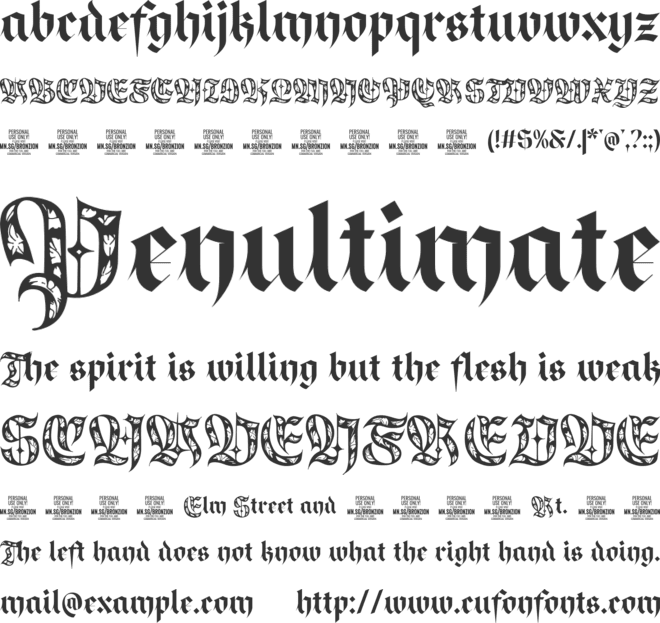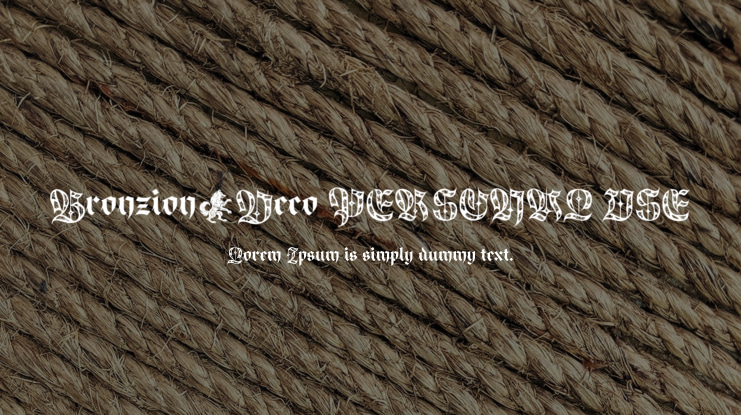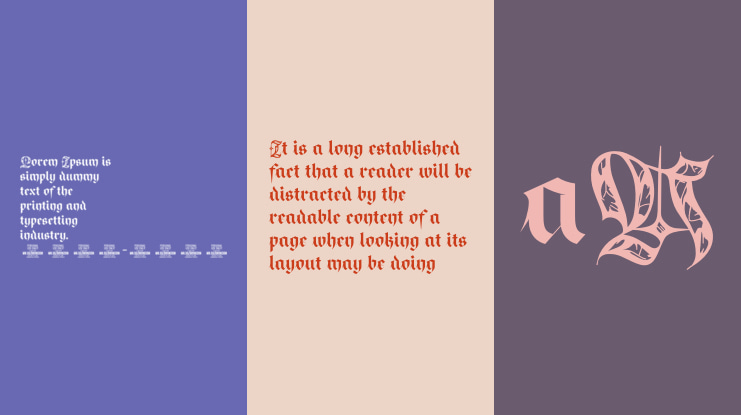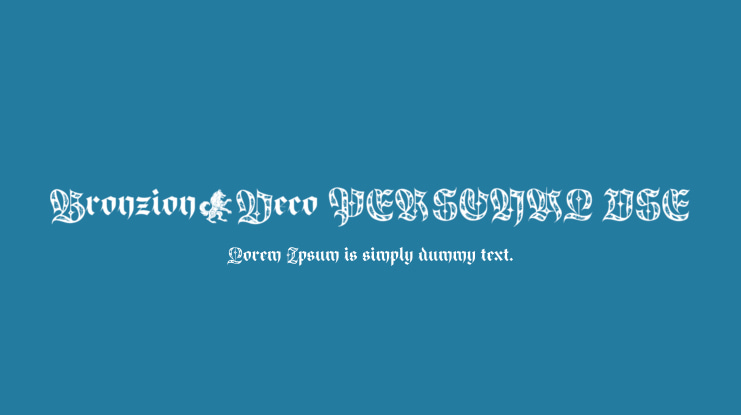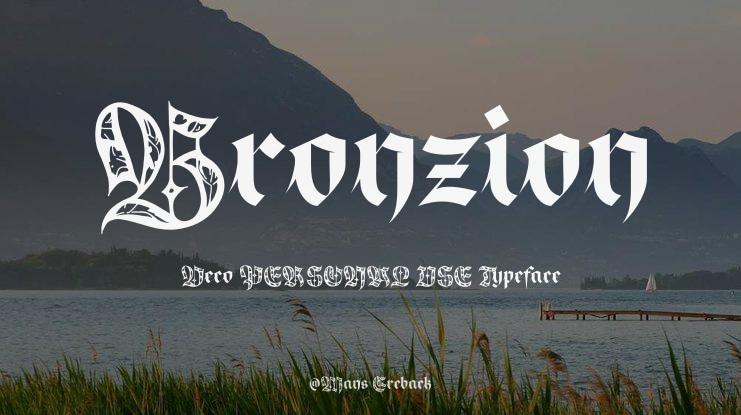
Bronzion Deco PERSONAL USE Font
Bronzion Deco is a blackletter typeface with illuminated features inspired by medieval designs.
You can use characters like πŸŒ²πŸŒ³πŸŽ πŸ‚πŸ…πŸ†πŸˆπŸ‰πŸŽπŸ•πŸ¦πŸ―πŸ²πŸΊπŸ‘‘πŸ‘ΈπŸ—‘πŸ€΄πŸ¦πŸ¦…πŸ¦‡πŸ¦ŒπŸ¦ŽπŸ¦“πŸ¦– to create logos and symbols that resemble heraldry.
For example, you can create a logo called "MagicπŸ‰Empire".